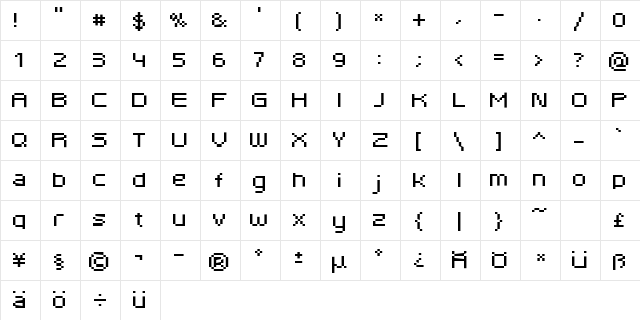
rktr6rg Regular Free Font
rktr6rg Regular
Design Context for rktr6rg
rktr6rg is a composed and adaptable typeface that performs quietly and consistently across a wide range of design contexts.
Pro Tip: Use rktr6rg in both headline and body roles to test its range before committing to a single application.